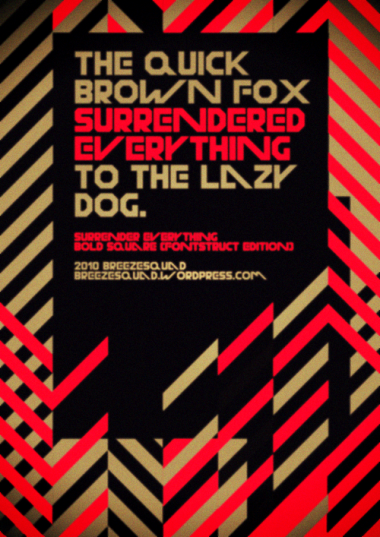
There are not many true sci-fi galactic fonts here in Fontstruct. This one is excellent. The assumed irregularity in the width of letters gives an impressive dynamic sensation wich is rare in that style where it is more bold effect that is researched.
Maybe I would increase the general spacing and better adapt the spacing of the ultra wide letters
Interesting work on your first design. Very clean and strong.
Congratulations! FontStruct Staff have deemed your FontStruction worthy of special mention. “Surrender Everything Bold Square” is now a Top Pick.
A+